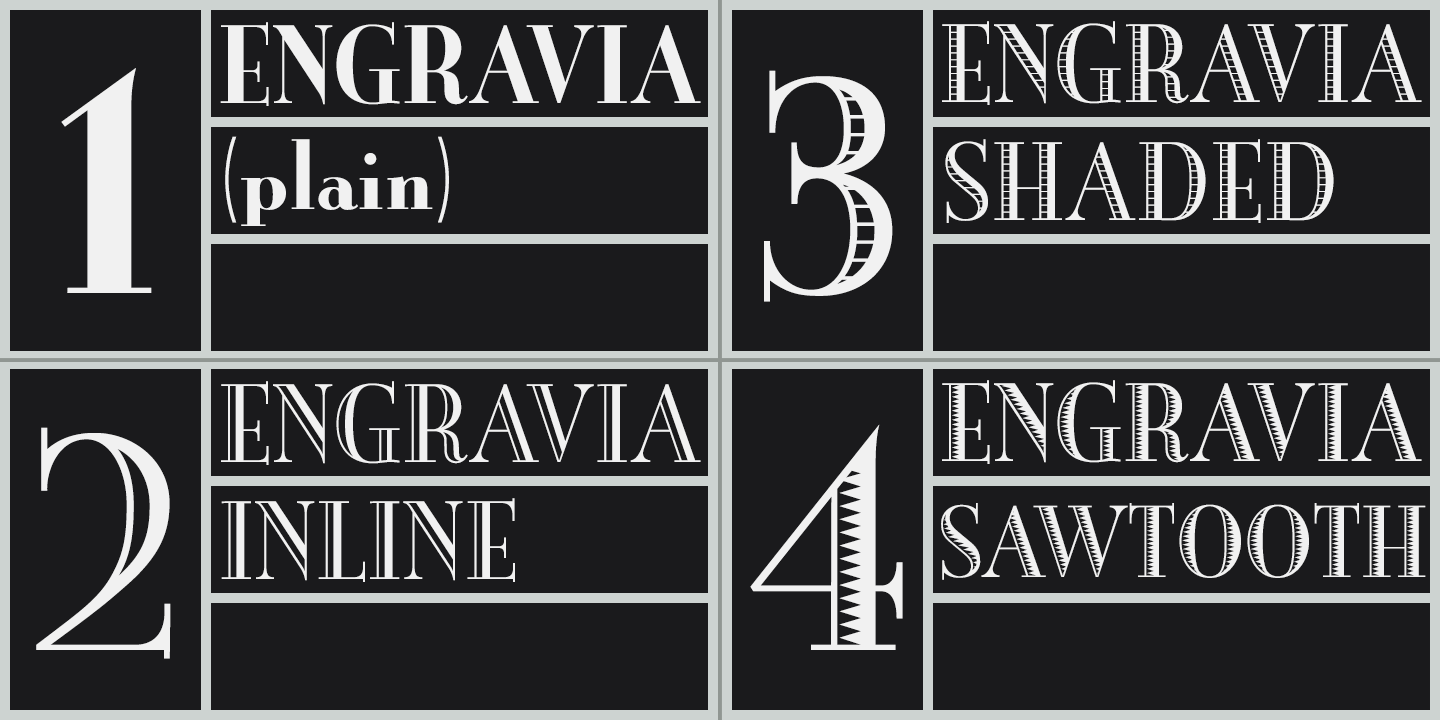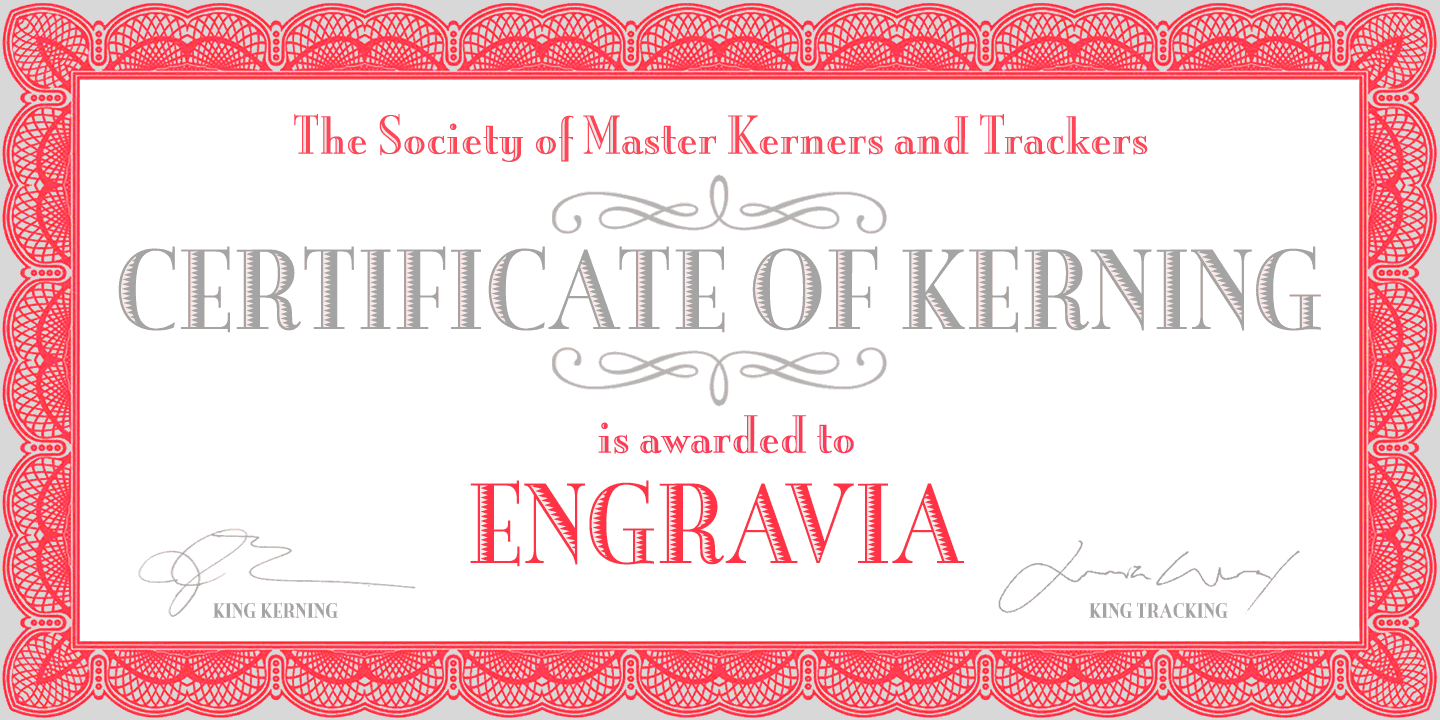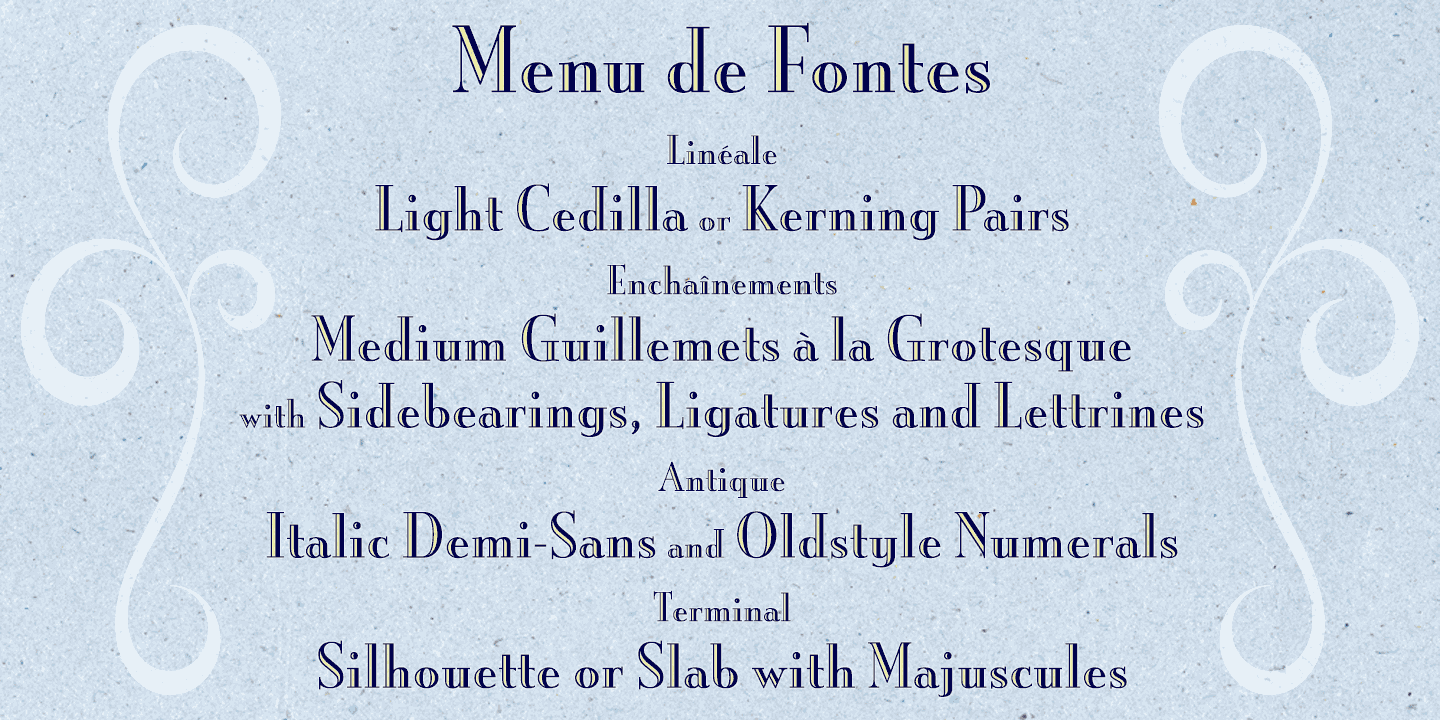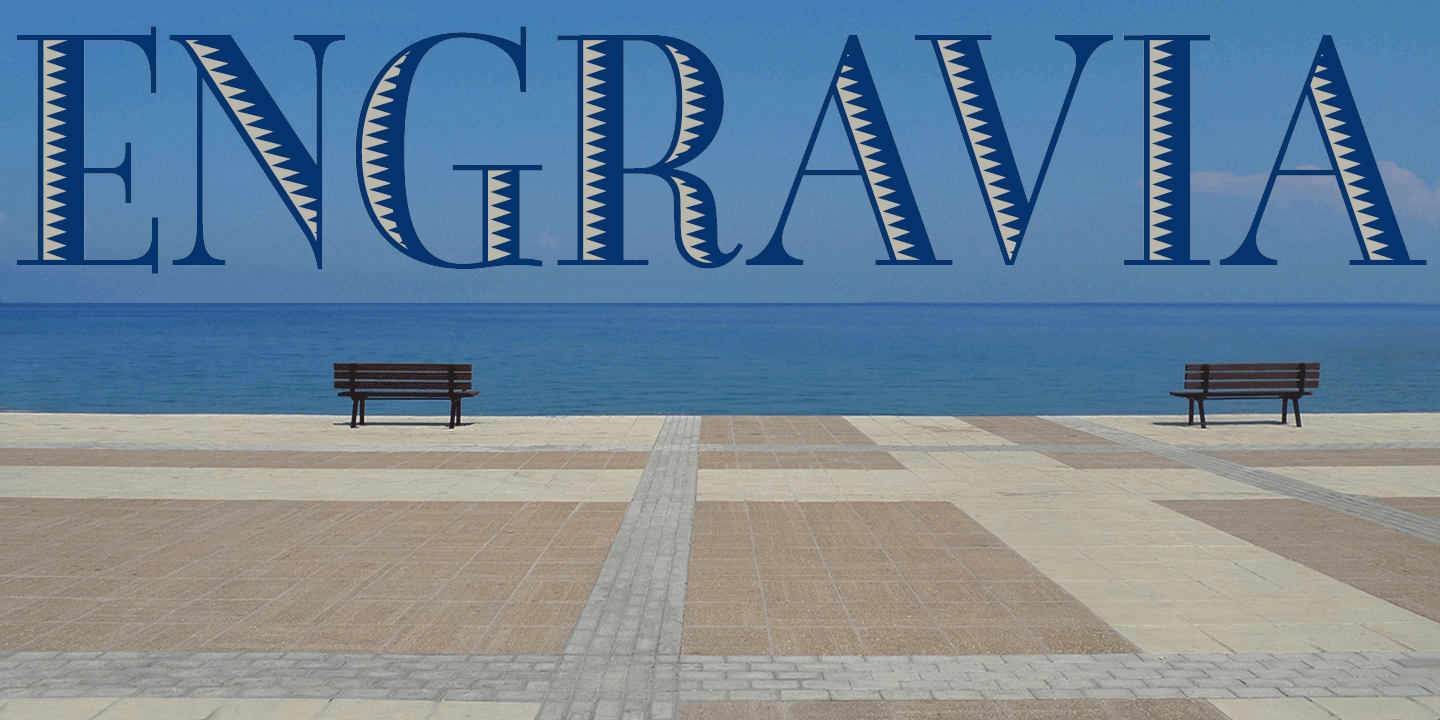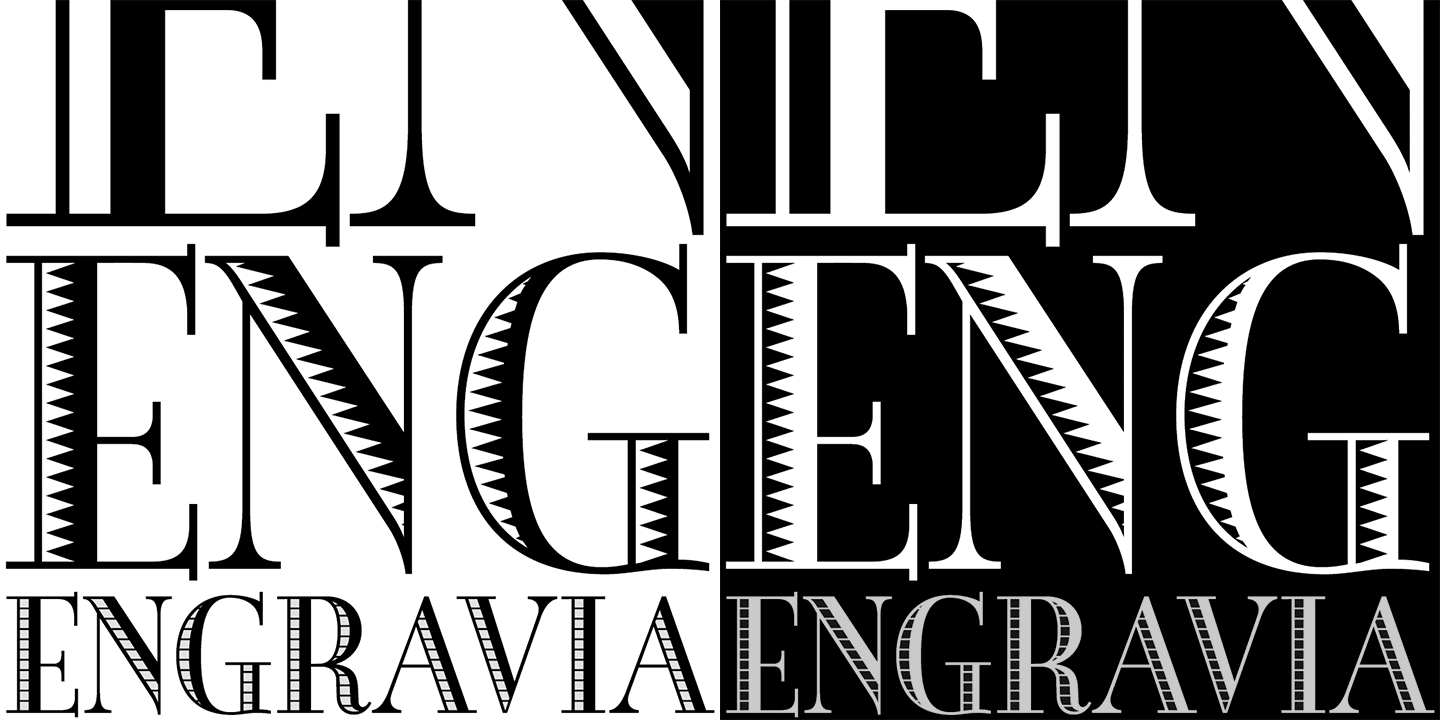
Engravia is a Didone display face supplied in three varieties of engraving ? Inline, Shaded and Sawtooth ? plus a plain basic font. All four fonts share the same spacing and kerning, so engraved characters can be overlaid onto plain ones to produce bicolor…